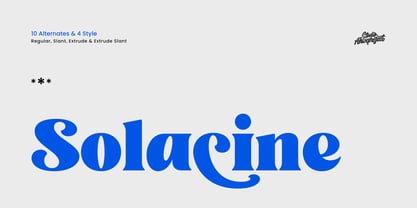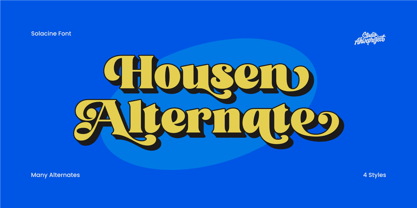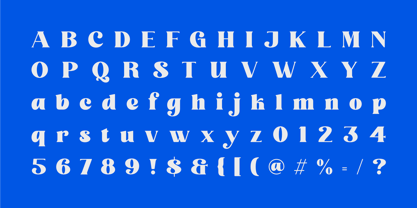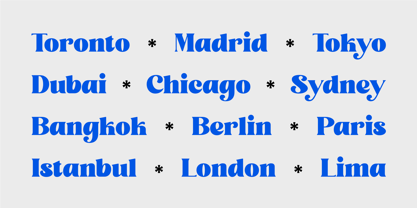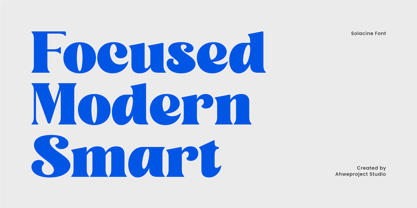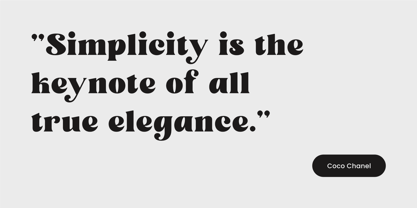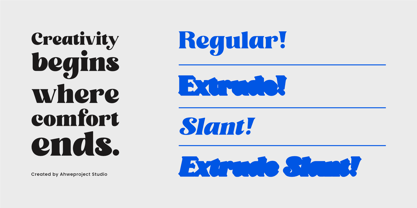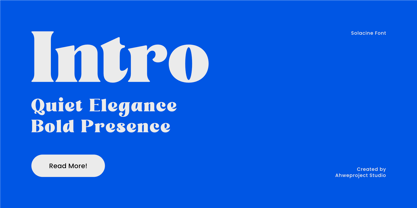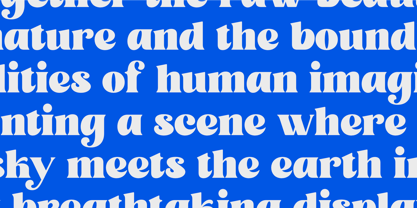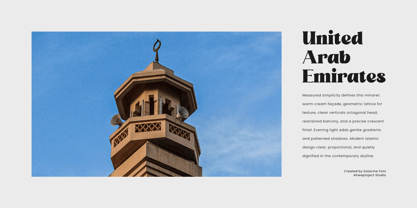
Solacine
Solacine is a bold retro display serif with lively curves and a confident groove—perfect for logos, big headlines, posters, packaging, and social media visuals. Its rounded shapes and flowing “c” tail deliver a fun yet tidy look that grabs attention instantly.
Highlights:
- 4 styles: Regular, Slant, Extrude, and Extrude Slant—mix them for striking 3D effects.
- 10 Alternates to craft distinctive wordmarks and standout titles.
- Ideal for modern–retro branding: fashion, food & beverage, music, events, and lifestyle.
- Optimized for headline & display: YouTube thumbnails, banners, stickers, merch, and editorials.
If you need a retro font that pops on sight, Solacine makes your message memorable in seconds.
Features:
- Uppercase & lowercase
- Numbers and punctuation
- Multilingual
- Alternates
- PUA encoded